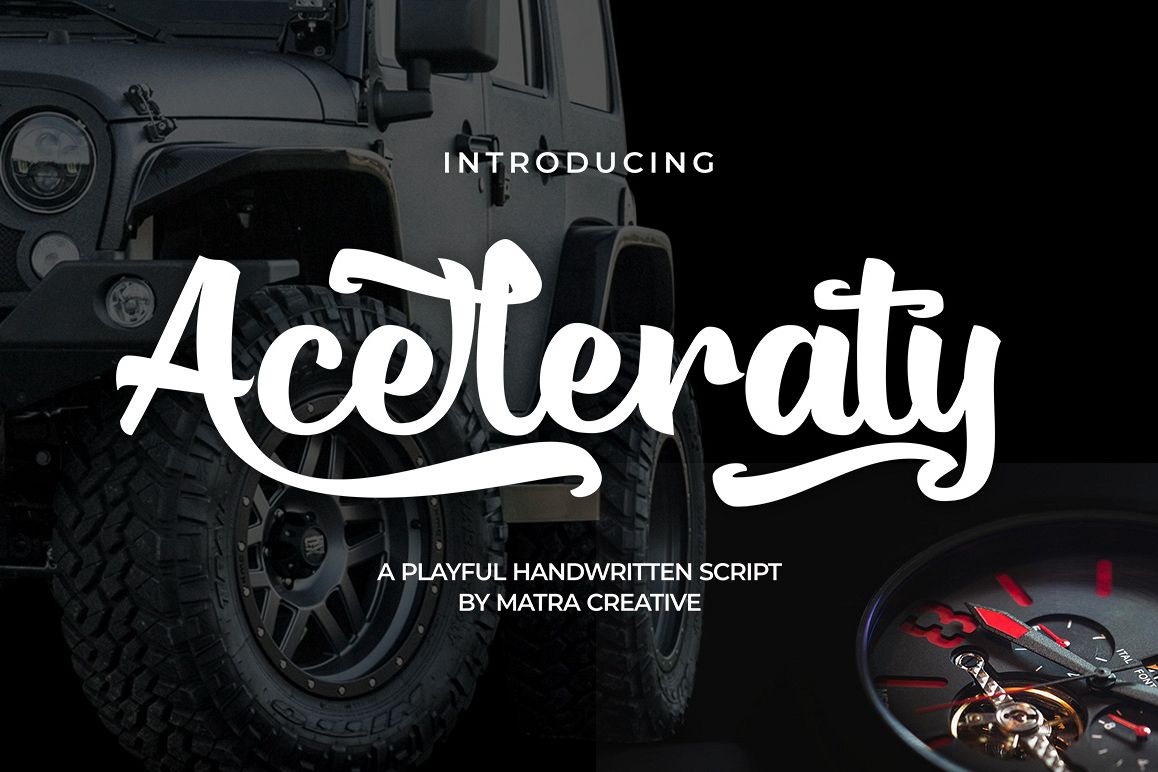
Aceleraty
Aceleraty - Handwritten Fonts are brush script fonts based on original handwriting expressions, allowing you to transform types into interesting and beautiful works. The handwriting display adds a real human touch to various things and is equipped with lots of loving details.
Aceleraty- Handwritten Fonts have many alternatives that give you the possibility to build your text almost like handwriting with all the imperfections and charming variations that actual handwriting has. Aceleraty will work perfectly for fashion, brand e-commerce, trend blogs, wedding boutiques, or any business that wants to look luxurious and chic.
Feature:
Uppercase & Lowercase
Stylistic alternative
Standard Ligatures
Numerals & Punctuations (OpenType Standard)
Accents (multilingual characters)
PUA Encoded